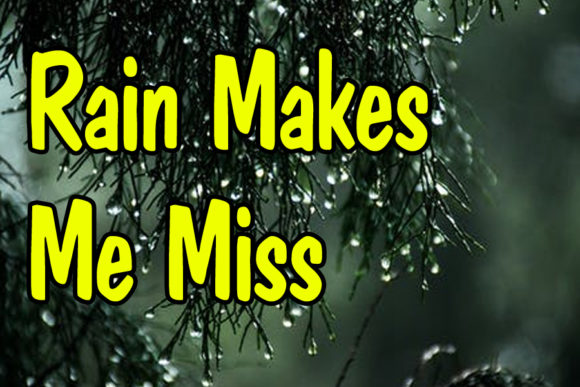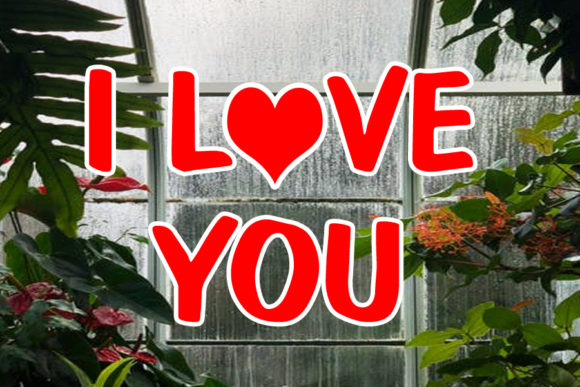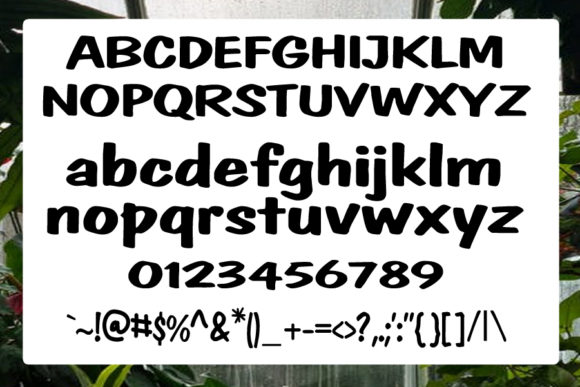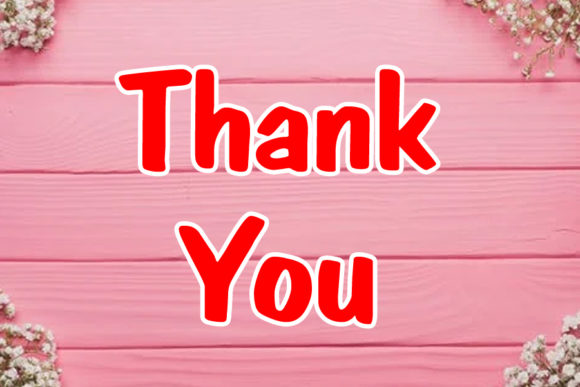
Introduction to Rainy Valentine Font
Rainy Valentine is a thick lettered, simple and daring display font.
No matter the topic, this font will be an incredibly asset to your fontsโ library, as it has the potential to elevate any creation .
Key Features of Rainy Valentine Font